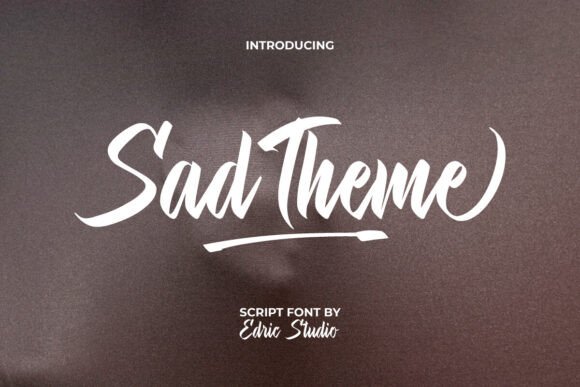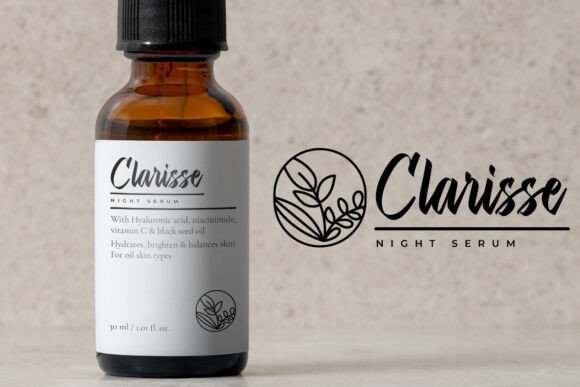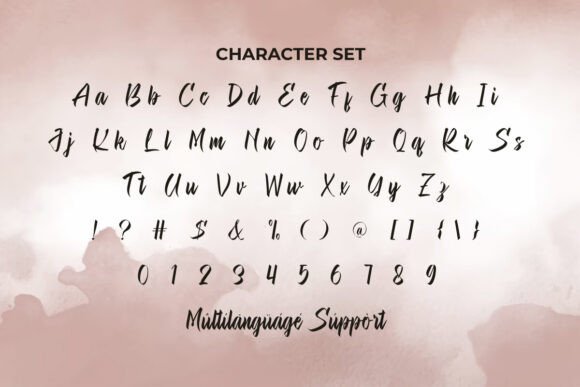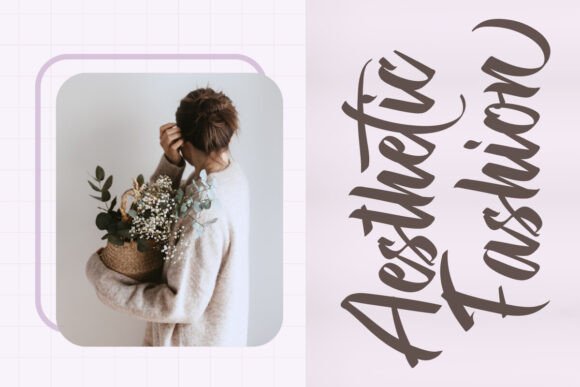
Sad Theme Font
About the Sad Theme Font
Make a bold statement with Sad Theme Font, a powerful and memorable font. Sad Theme is a bold brush script font that blends raw emotion with expressive style. With thick strokes, natural flow, and handcrafted texture, this typeface brings a personal, heartfelt touch to quotes, album covers, posters, and social media graphics. Despite its name, Sad Theme isn’t just for moody projects—it’s also perfect for anything that needs a handwritten look with attitude and soul.
Its bold strokes and expressive nature make Sad Theme ideal for headlines, short quotes, and impactful branding elements. It excels in applications requiring a strong visual presence, such as posters, album art, or social media banners. However, its highly textured brush style is less suitable for body text or UI elements where readability is paramount. Long paragraphs set in Sad Theme would be difficult to decipher.
Consider pairing Sad Theme with a clean sans-serif like Montserrat for a balanced contrast, or a classic serif like Garamond for a touch of sophistication. For a more modern feel, a geometric sans-serif such as Futura could work well. The key is to select a contrasting typeface that provides clear readability where Sad Theme is used for emphasis.
Sad Theme projects a bold, expressive, and slightly rebellious personality. It’s a great choice for brands and projects that want to convey authenticity, emotion, and a touch of raw energy.
Sad Theme Font Usage Examples
Sad Theme Font Example